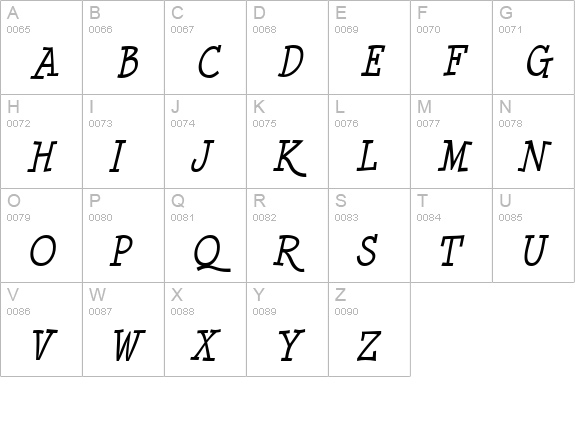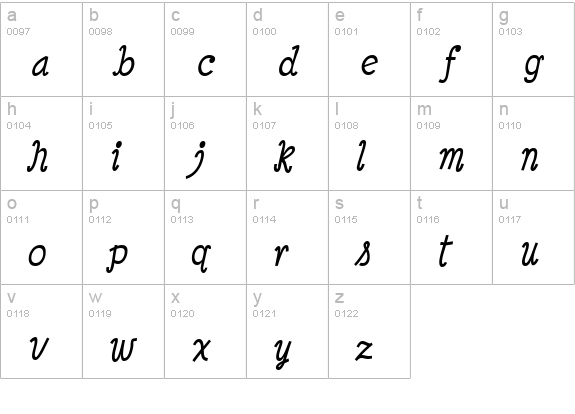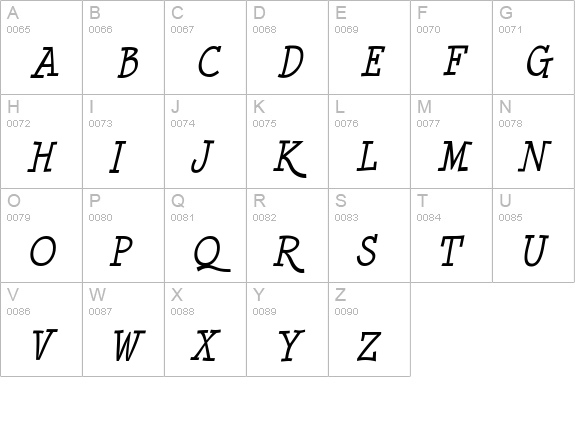
Minya Nouvelle Italic is a distinctive, italic variant in the Minya typeface family \xE2\x80\x94 well suited to design and typography projects.
Introducing Minya Nouvelle Italic font, a sleek and elegant typeface perfect for adding a touch of sophistication to your design projects. The italicized style of this font exudes a sense of modernity and grace, making it suitable for a wide range of applications, from editorial design to branding and beyond. With its delicate curves and stylish letterforms, Minya Nouvelle Italic font adds a touch of finesse to any text, enhancing readability and visual appeal. Whether you're creating a logo, designing a website, or crafting a print layout, this font is sure to make a statement. Best of all, Minya Nouvelle Italic font is available for free download at FontsMarket.com, allowing you to access this premium typeface at no cost. Don't miss out on the opportunity to elevate your design projects with the timeless beauty of Minya Nouvelle Italic font. Download it today and start creating with style and sophistication.